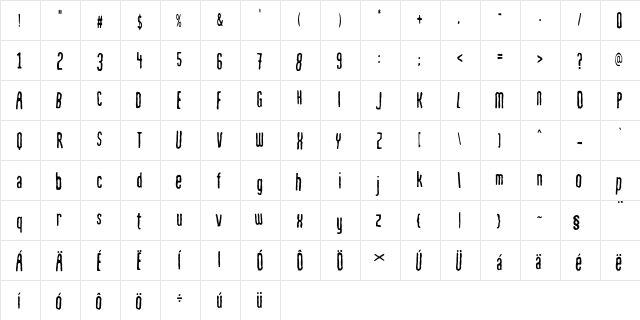
Mahrpedig Sans Regular
Design Context for Mahrpedig Sans Typeface
Mahrpedig Sans offers clean, dependable letterforms without strong stylistic allegiance, making it a practical choice for designers who need flexibility.